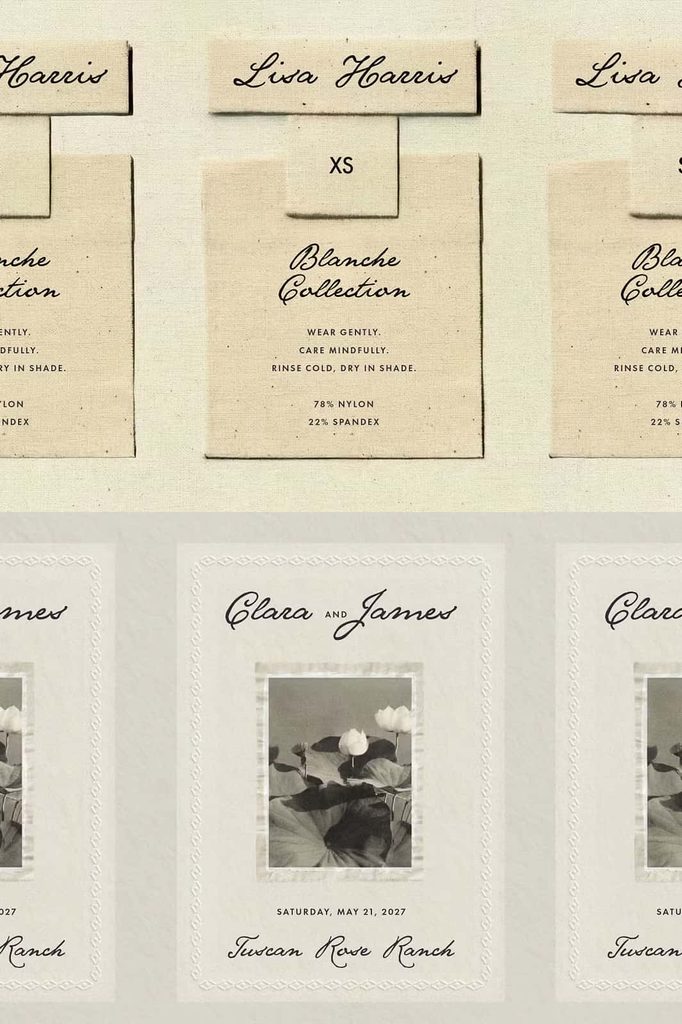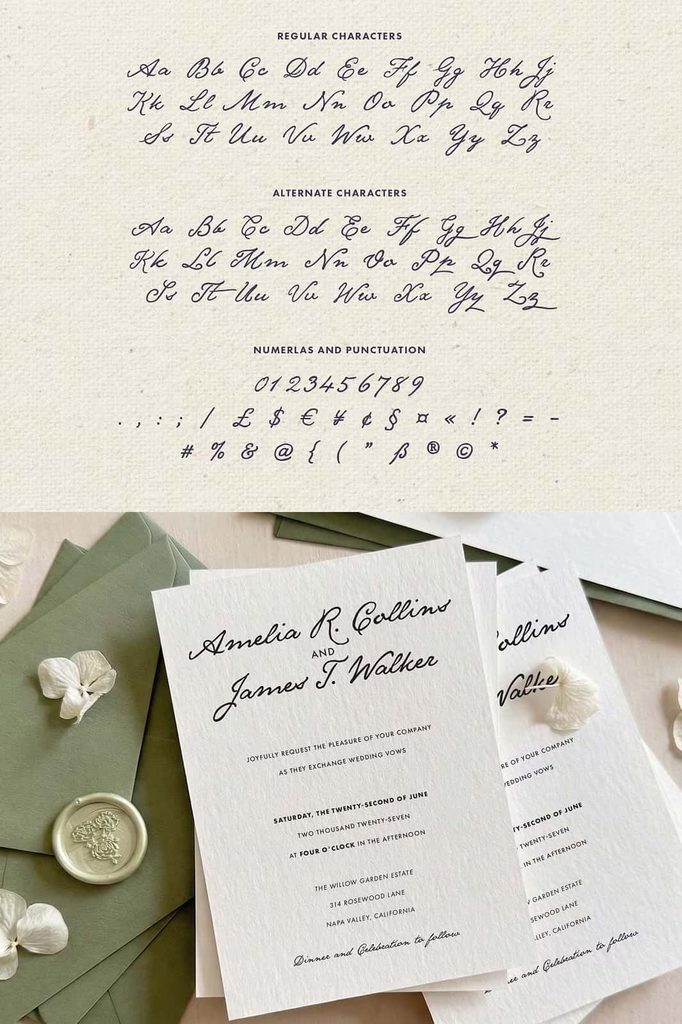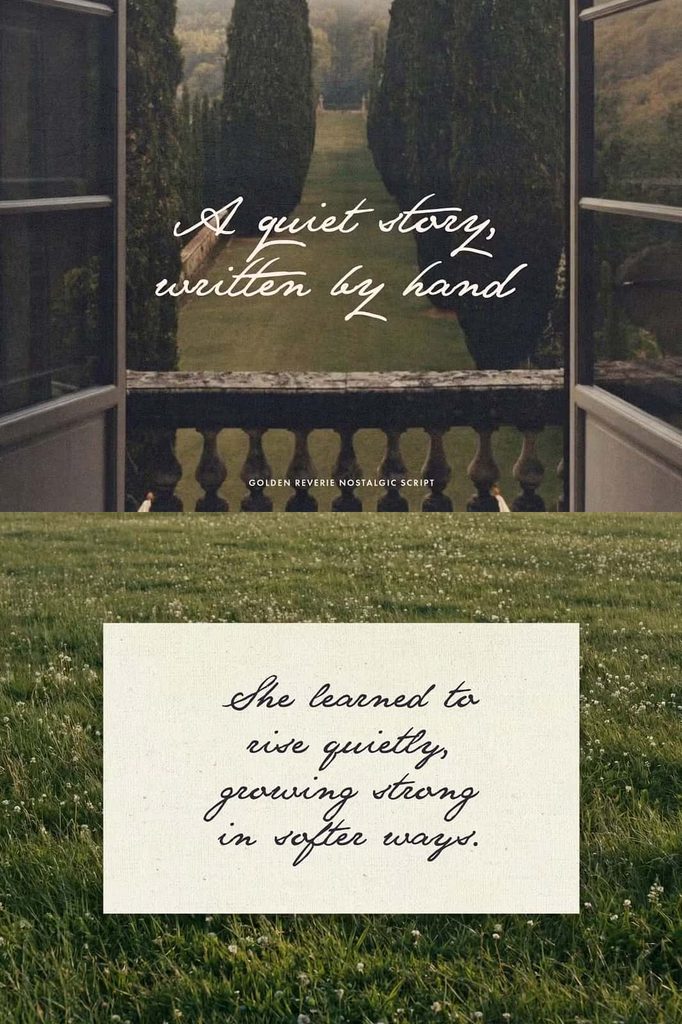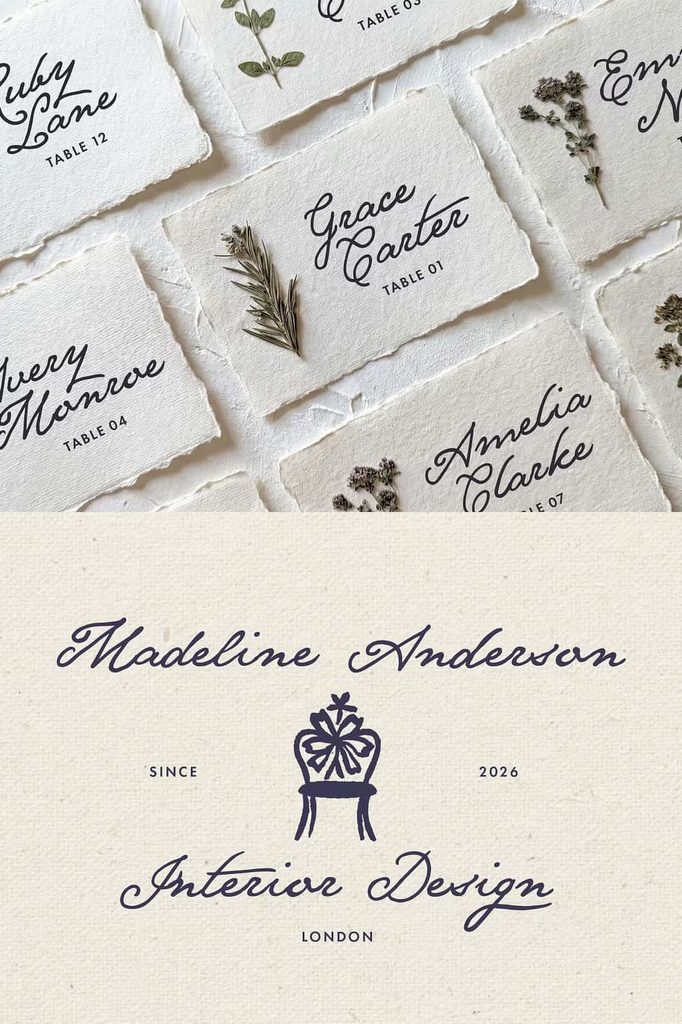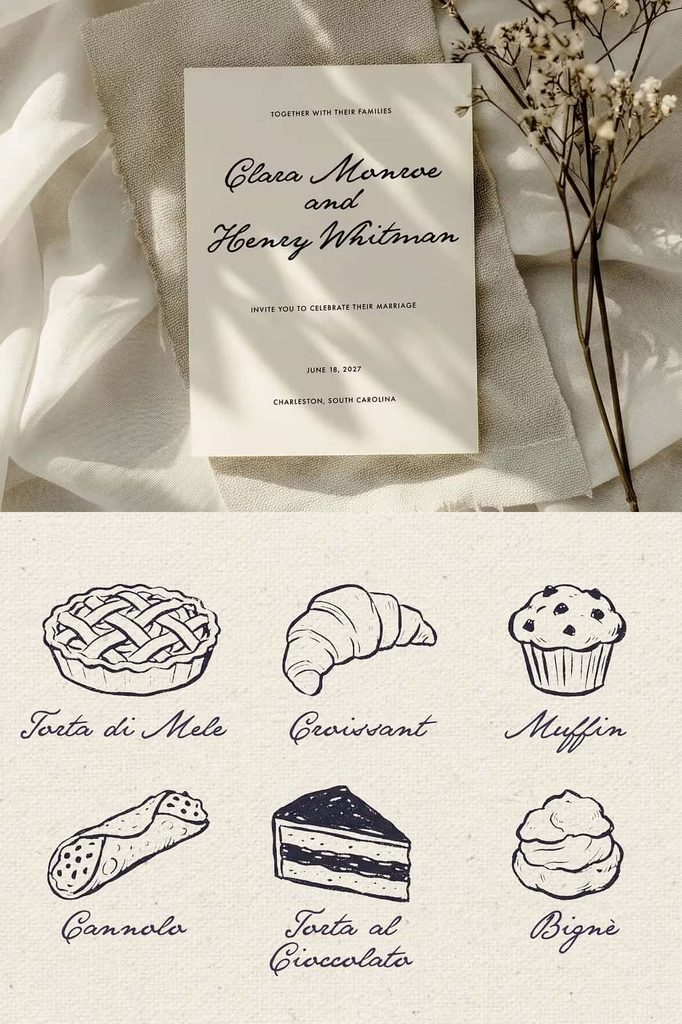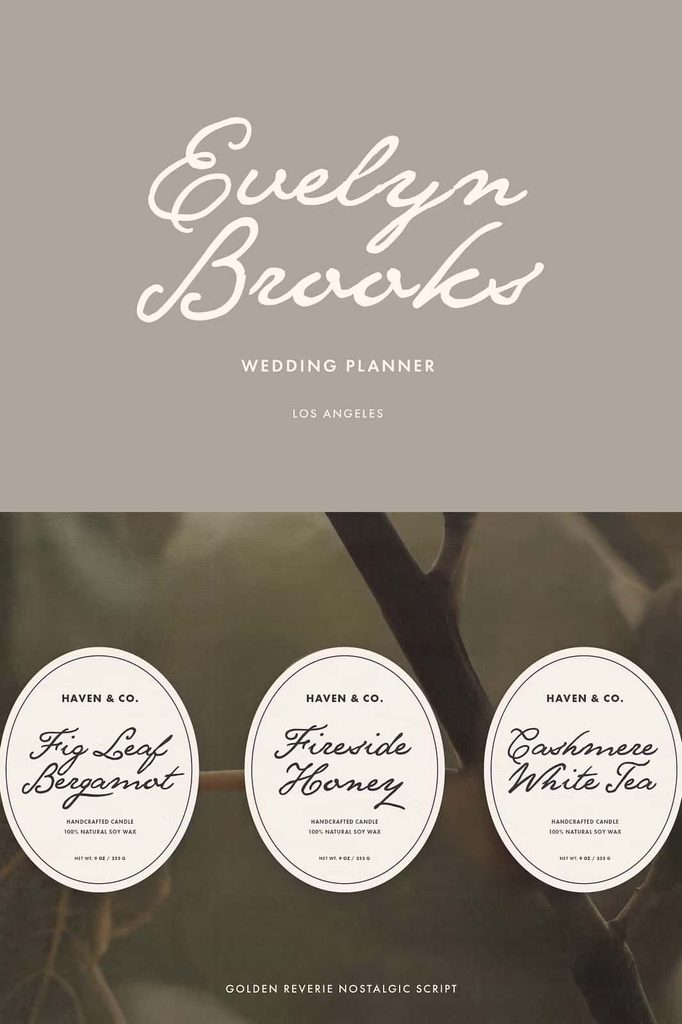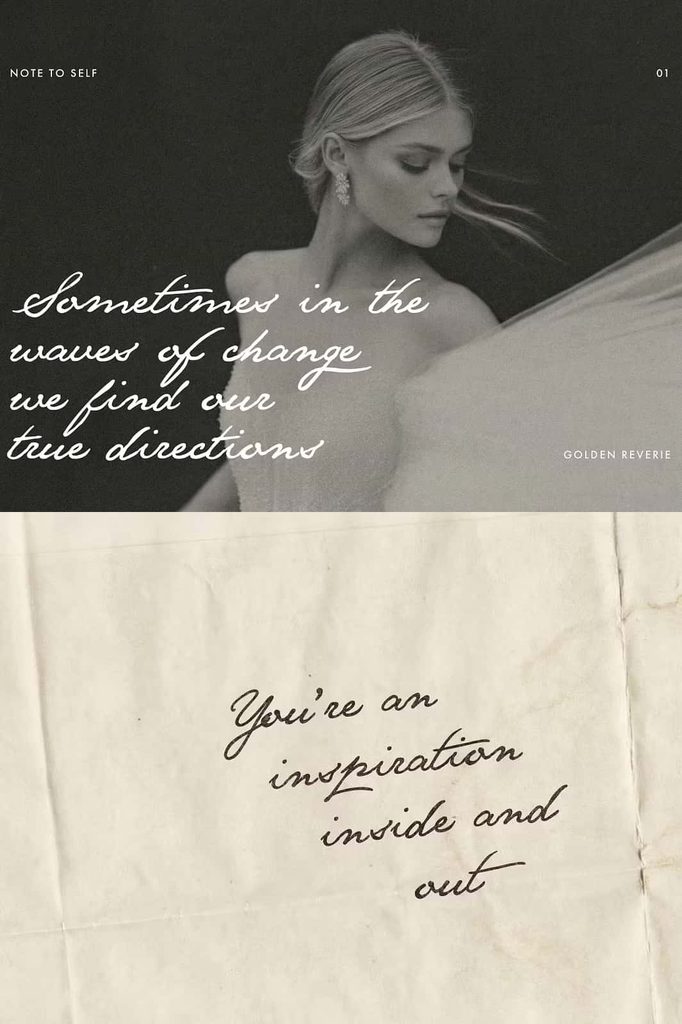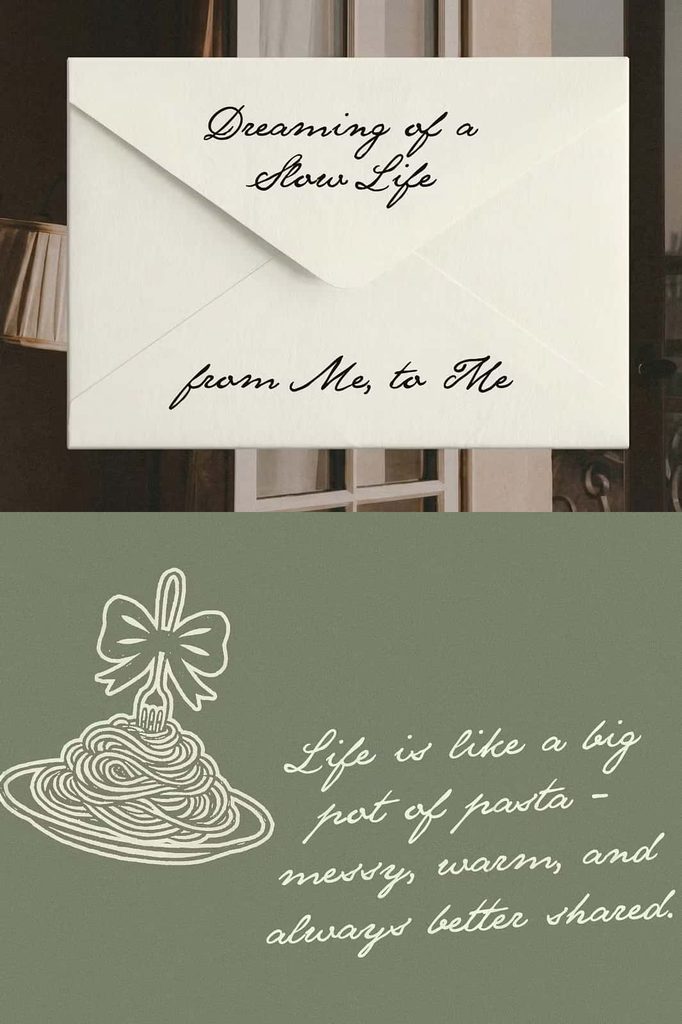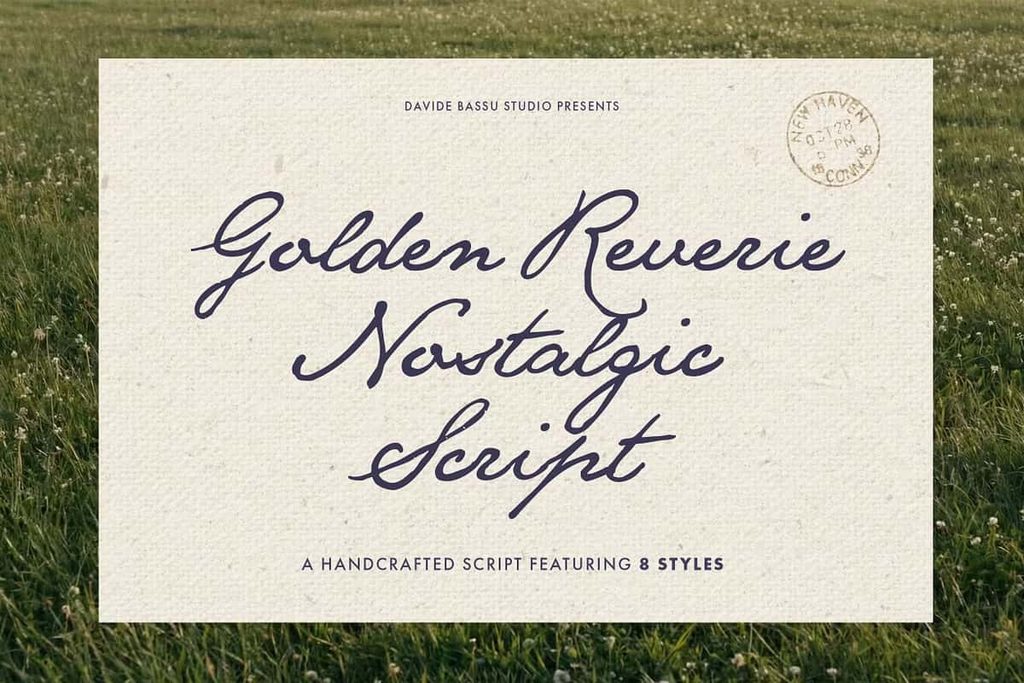
Golden Reverie Nostalgic Script Font – Timeless Handcrafted Elegance
Golden Reverie – Nostalgic Script is a beautifully handcrafted script font that captures the charm of timeless handwriting and classic editorial typography. Designed with soft, fluid strokes and expressive letterforms, this font creates an elegant visual rhythm that feels personal, sophisticated, and effortlessly stylish. Golden Reverie combines the warmth of natural handwriting with the refined balance of carefully crafted typography, giving designers a versatile typeface for projects that demand character and emotional appeal.
Inspired by handwritten letters, nostalgic design, and vintage editorial aesthetics, Golden Reverie brings a graceful personality to every word. Its flowing forms create a sense of movement while maintaining excellent visual balance and readability. Whether you are creating an elegant wedding invitation, developing a refined brand identity, designing premium packaging, or adding a personal touch to editorial artwork, this script font helps transform ordinary text into expressive visual storytelling.
A Handcrafted Script with Timeless Character
Golden Reverie stands out through its authentic handcrafted appearance. Instead of creating overly perfect or mechanical letterforms, the design embraces the natural qualities associated with handwritten lettering. Its smooth curves and flowing strokes create an inviting appearance that feels artistic without becoming difficult to read.
The nostalgic character makes Golden Reverie particularly effective for projects that draw inspiration from classic design. Its vintage influence can evoke handwritten correspondence, old editorial layouts, boutique branding, romantic stationery, and carefully produced print materials. At the same time, its refined construction allows it to integrate naturally into contemporary designs.
Use Golden Reverie when you want your typography to communicate elegance, warmth, personality, and craftsmanship. The font can become a visual signature for your project, helping your audience connect with the design on a more emotional level.
Soft, Fluid, and Expressive Letterforms
The flowing structure of Golden Reverie creates a graceful connection between letters. Its fluid strokes guide the eye naturally across words, producing the sophisticated appearance associated with handwritten scripts. This quality makes the font particularly effective for names, titles, short phrases, and prominent display text.
Golden Reverie also balances decorative beauty with readability. While its letterforms include expressive details, the overall design remains controlled and approachable. This balance allows you to use the font in elegant compositions without sacrificing the clarity of your message.
Create Natural-Looking Typography
Use Golden Reverie to create typography that feels personal and carefully crafted. Apply it to names, signatures, romantic phrases, brand titles, product names, or short editorial headlines. Combine the script with generous spacing and a simple supporting typeface to allow its flowing forms to remain the focus.
Perfect for Wedding Designs
Golden Reverie works beautifully for wedding stationery and romantic celebrations. Its elegant handwritten appearance can add warmth and sophistication to invitations, save-the-date cards, menus, place cards, thank-you notes, wedding signage, and other event materials.
Use the font for the couple’s names, wedding titles, dates, or meaningful phrases. Its nostalgic character works especially well with botanical illustrations, delicate borders, subtle textures, classic serif fonts, and minimalist layouts. Together, these elements can create a sophisticated stationery collection with a cohesive visual identity.
Golden Reverie can also support engagement announcements, anniversary designs, bridal shower graphics, and romantic social media artwork. Its expressive strokes help communicate the personal and emotional nature of these occasions.
Elegant Branding and Logo Design
A distinctive script can give a brand an immediate sense of personality, and Golden Reverie provides an excellent foundation for elegant visual identities. Its handcrafted style can help businesses communicate creativity, refinement, authenticity, and attention to detail.
Use Golden Reverie for boutique logos, personal brands, beauty businesses, fashion labels, creative studios, lifestyle brands, wedding businesses, stationery companies, and artisanal products. The font works particularly well when the brand needs a signature-inspired wordmark that feels sophisticated and memorable.
Build a Refined Brand Identity
For branding projects, combine Golden Reverie with a clean serif or sans serif typeface. Let the script handle the primary brand name while the secondary font communicates supporting information. This contrast creates a professional hierarchy and prevents the design from becoming visually crowded.
You can also incorporate the script into packaging, business cards, website headers, social media templates, product labels, and promotional materials. Consistent use across these applications can help strengthen brand recognition.
If you are searching for a script font that blends vintage inspiration, natural handwriting, elegant curves, and contemporary versatility, Golden Reverie offers a graceful solution for creating designs that feel personal, polished, and unforgettable.